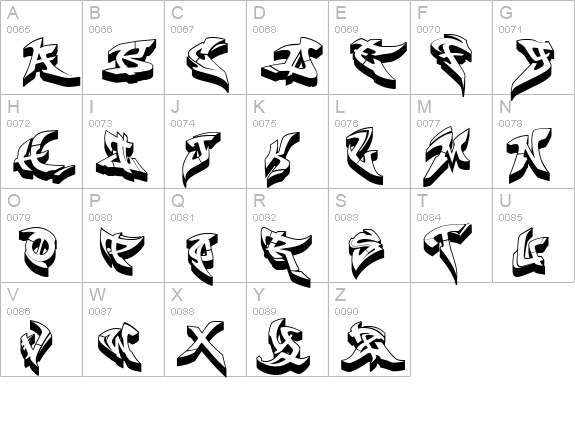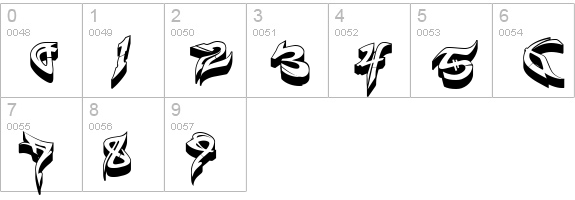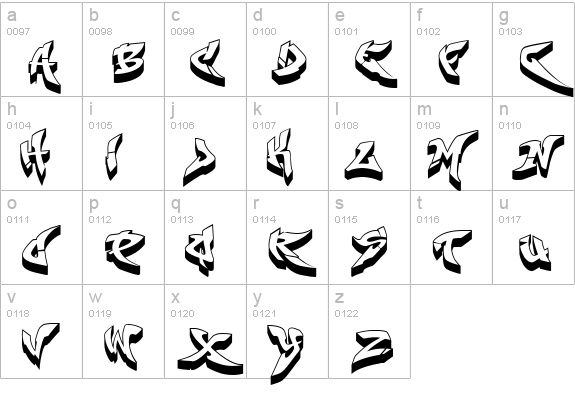
Introducing RaseOne Fat 3D font, the epitome of urban style and edgy design. This font is a bold and dynamic display typeface that will make your words jump off the page with its three-dimensional effect. Designed with meticulous attention to detail, RaseOne Fat 3D font exudes a powerful and energetic vibe, perfect for capturing attention and making a statement. The unique and innovative design of RaseOne Fat 3D font is sure to leave a lasting impression. Its thick and exaggerated letterforms create a sense of depth and dimension, giving your words a captivating and eye-catching appearance. Whether you're designing a logo, poster, or any other creative project, this font will add a touch of urban flair and modernity. One of the best things about RaseOne Fat 3D font is that it is freely available to download at FontsMarket.com. This means that you can unleash your creativity without any constraints or limitations. Whether you're a professional designer or just someone looking to add a touch of style to your personal projects, this font is a must-have in your collection. With its versatility and boldness, RaseOne Fat 3D font is suitable for various design applications. Its strong presence makes it ideal for headlines, titles, and branding materials, while its legibility ensures that your message is delivered with clarity. This font truly embodies the spirit of modern urban design and is guaranteed to make your words stand out from the crowd. So why wait? Download RaseOne Fat 3D font now from FontsMarket.com and unleash your creativity. Whether you're designing for print or digital, this font will elevate your projects to new heights. Don't miss out on the opportunity to add a touch of urban style to your designs. Get your hands on RaseOne Fat 3D font today and let your words make a bold and impactful statement.